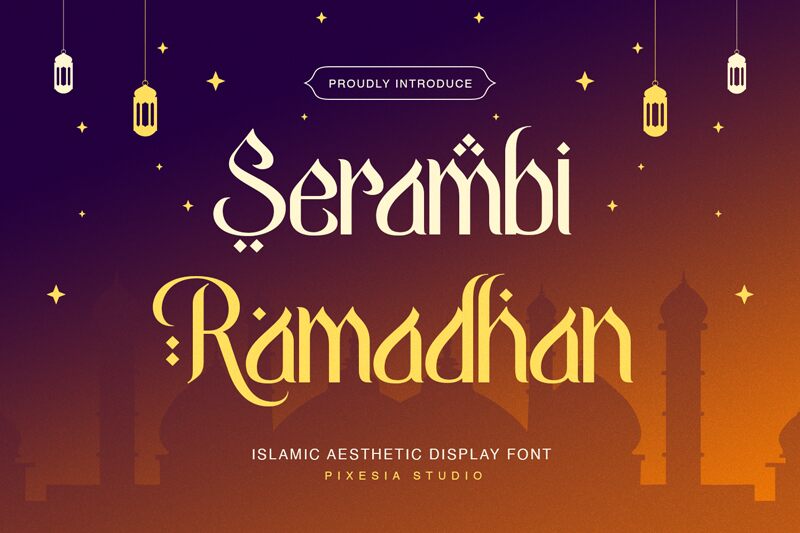
Serambi Ramadhan font by Pixesia Studio is a free font that brings a foreign style to your design. The font’s sophisticated, elegant, and decorative aspects come together to create a cultural piece with a deep cultural hint. It looks exotic and traditional, yet it remains stylized and artistic with ornamental ceremonial details.
Use it in headlines or titles, then mix it with legible fonts with paragraphs of body text. Other uses for it include packaging design, greeting cards, social media posts, branding, advertising, posters, flyers, and event ticket design.